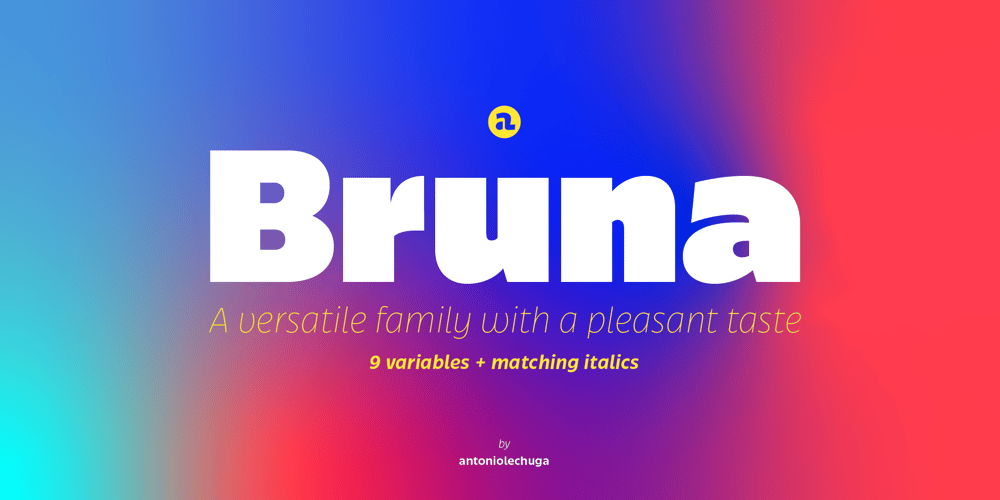
Bruna Font Family was designed by Antonio Mejía and published by Lechuga Type. Bruna contains 18 styles and family package options. Its open counters and large x height give it excellent performance in small sizes. On the other hand, its curved diagonals, generous width and soft shapes give it a friendly but functional personality for a wide range of messages and voices.We recommend the four most extreme weights (Thin, ExtraLight, Black, and Heavy) for large sizes starting at 18 points, and the five intermediate weights (Light, Book, Regular, Medium, and Bold) for small sizes starting at 7 points.